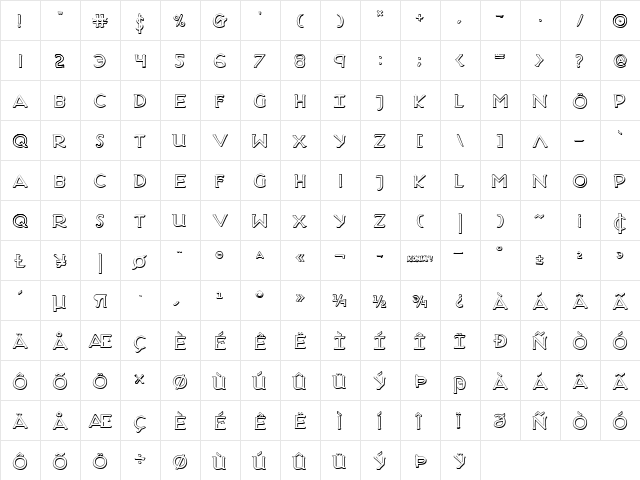
Hadriatic Shadow Regular
Design Context for Hadriatic Shadow Typeface
Hadriatic Shadow brings ornamental detail and strong personality to headlines and identities, where visual impact matters more than quiet functionality.
Font Pairing: Pair with a clean neutral sans-serif for body copy to let Hadriatic Shadow's character lead without overwhelming the composition.
Pro Tip: Use Hadriatic Shadow exclusively at display sizes — it was designed to be seen, not read at length. Let a neutral companion handle body copy.